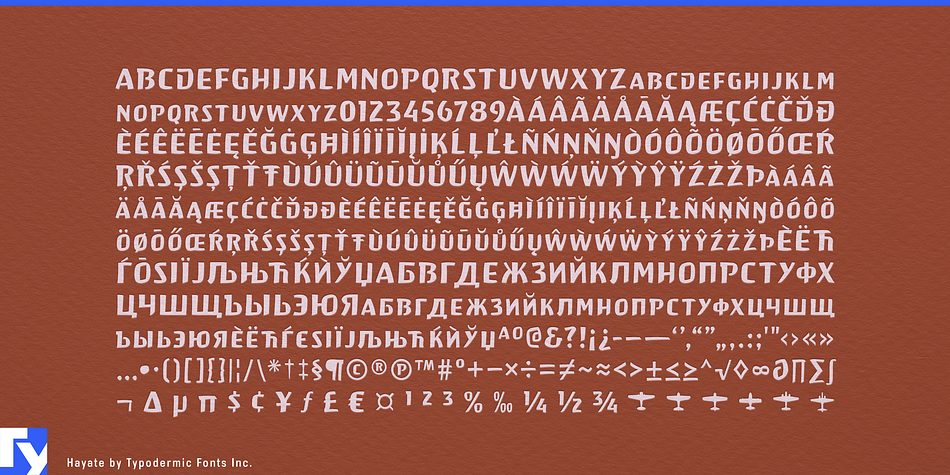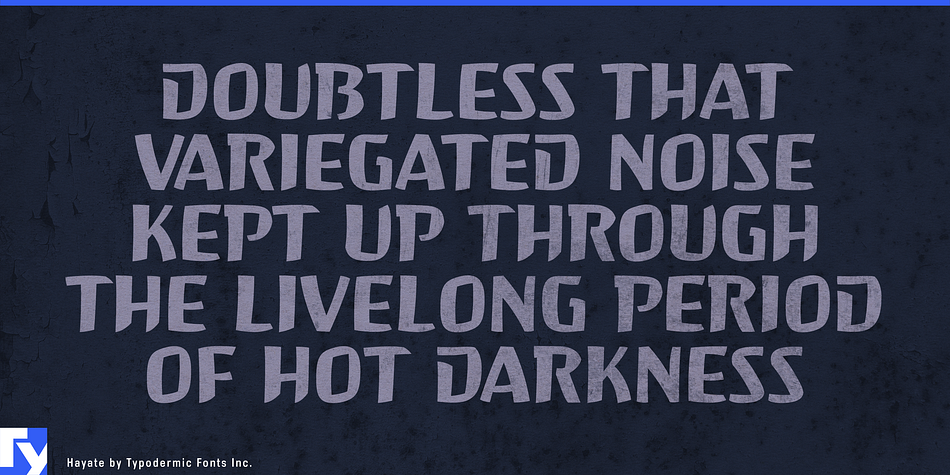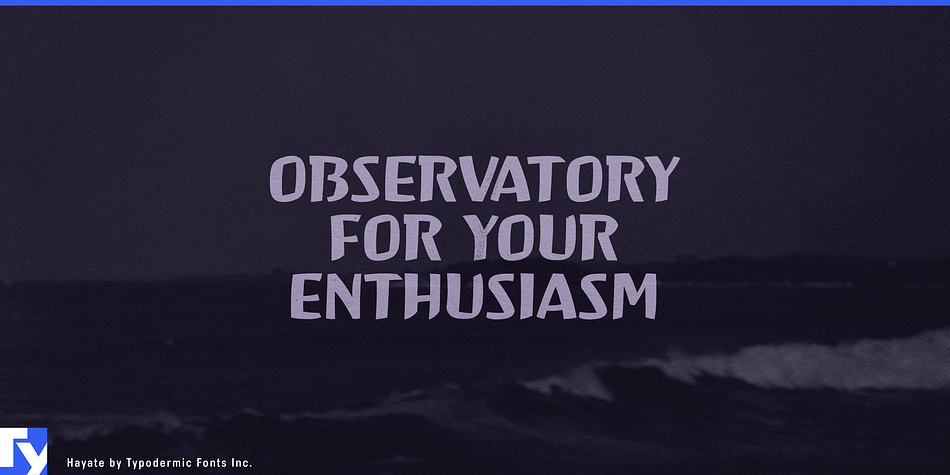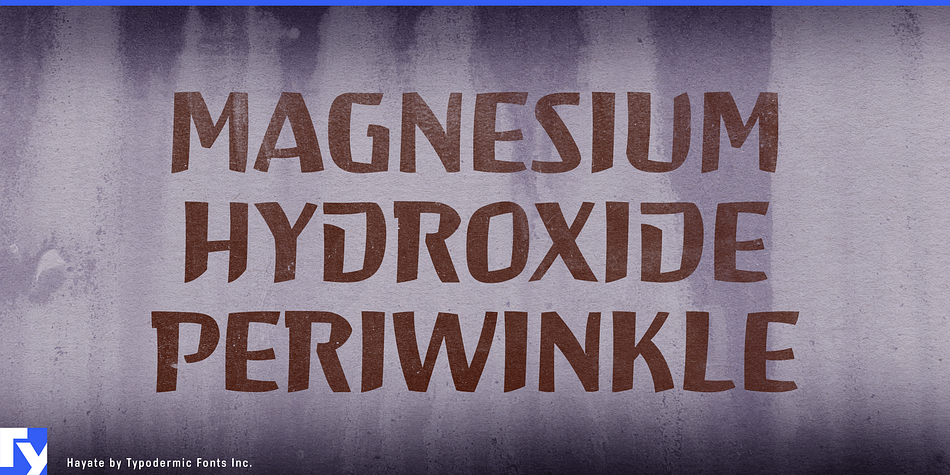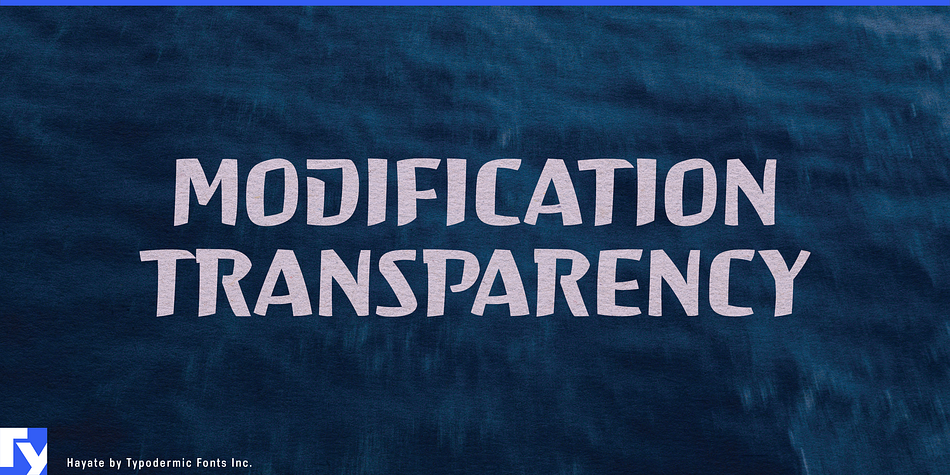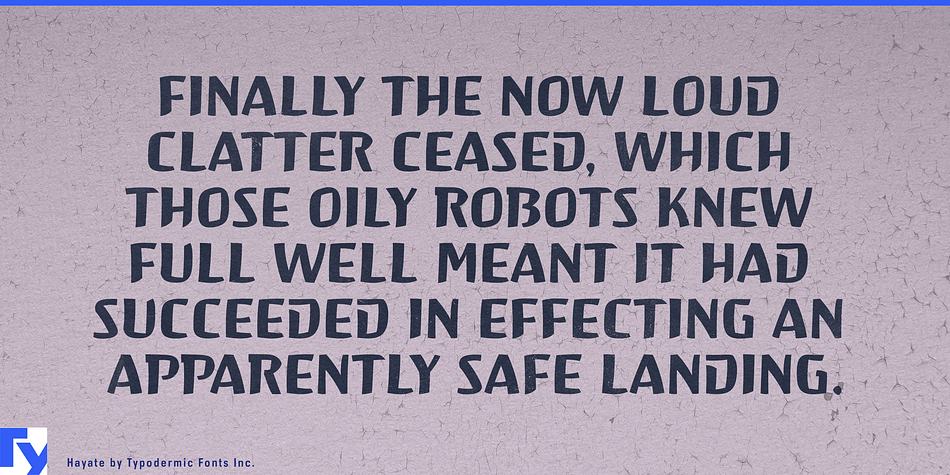
Hayate is a hand display font published by Typodermic Fonts Inc.
Hayate (ha-ya-teh) is a rugged small-cap typeface, designed to resembled cut bamboo. A capricious nod to the mid-twentieth century American pseudo-Asian restaurant aesthetic.